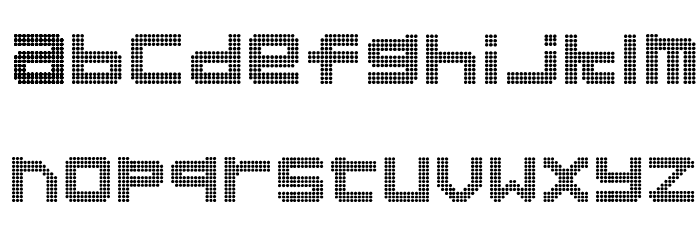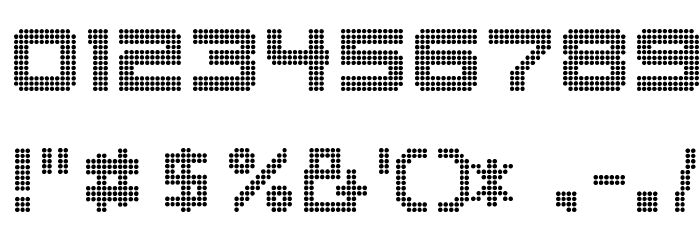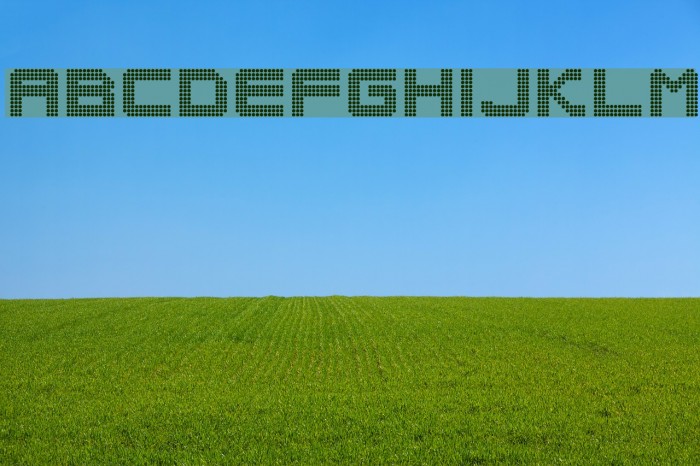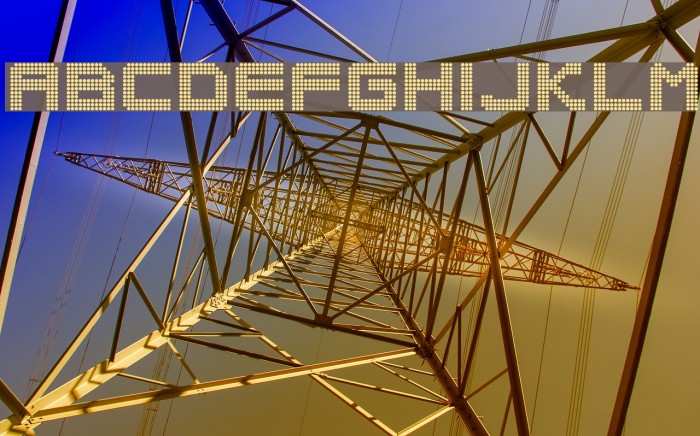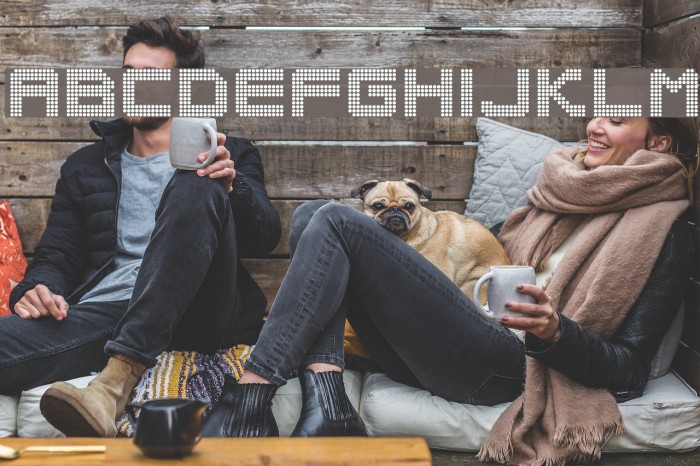
Orandakan Kana Font
This font features a unique dot matrix design, creating a digital and futuristic appearance. Each character is composed of small, evenly spaced dots that form the outlines of letters and numbers. The style is reminiscent of early digital displays or LED screens, providing a retro yet modern feel. The uniformity of the dots gives the font a structured and geometric look, while the spacing between the dots ensures readability. This font stands out for its distinct visual texture, making it ideal for projects that require a technological or avant-garde aesthetic.
A dot matrix font with a digital, futuristic style.
- Proposed Projects: Ideal for digital displays, tech-themed designs, retro posters, and modern branding.